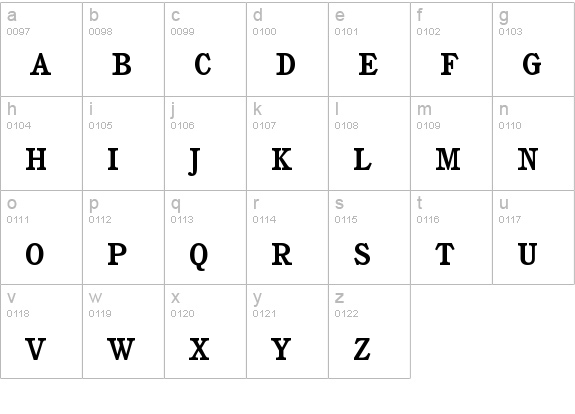
C851-Roman-Smc-Bold is a strong, high-contrast variant in the C851 typeface family \xE2\x80\x94 well suited to headlines, attention-grabbing titles, and strong calls-to-action.
Introducing the stunning C851-Roman-Smc-Bold font, a timeless and elegant choice for all your design needs. This bold typeface exudes sophistication and professionalism, making it perfect for a wide range of projects, from branding to editorial design. With its clean lines and classic Roman styling, C851-Roman-Smc-Bold commands attention and adds a touch of refinement to any layout. Whether you're creating a logo, a poster, or a website, this versatile font is sure to make a lasting impression. Best of all, this premium font is available for free download at FontsMarket.com. Don't miss out on the opportunity to enhance your designs with the beauty and grace of C851-Roman-Smc-Bold. Download it today and elevate your projects to new heights.